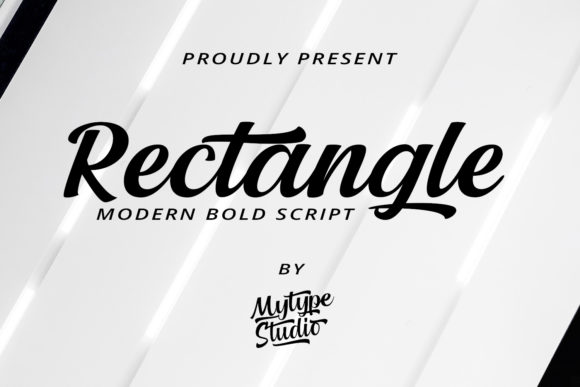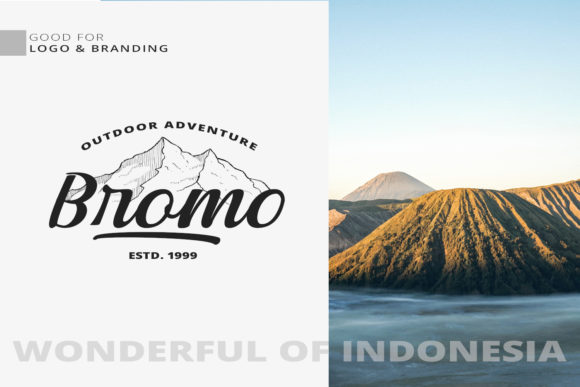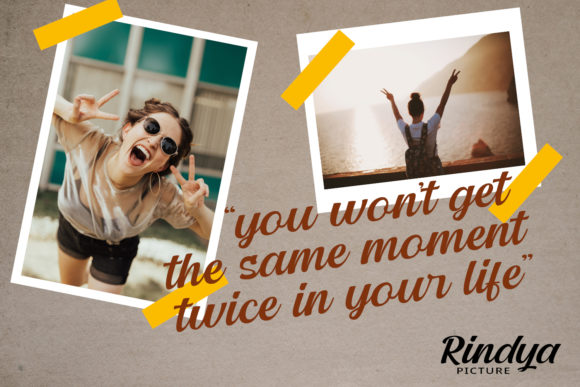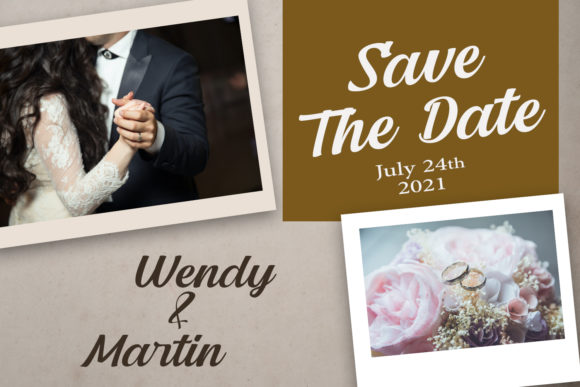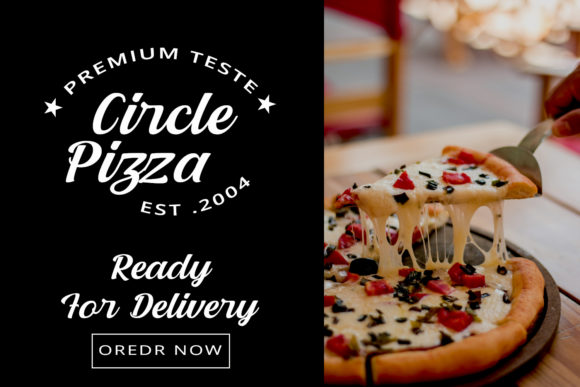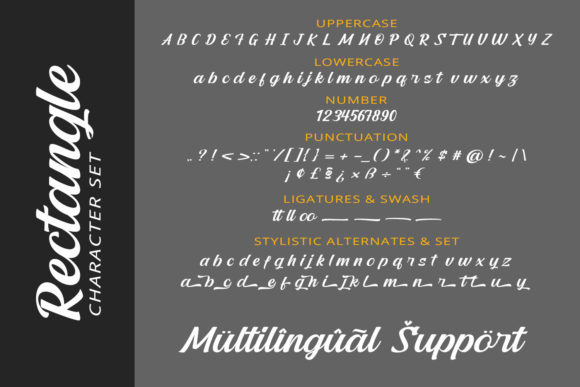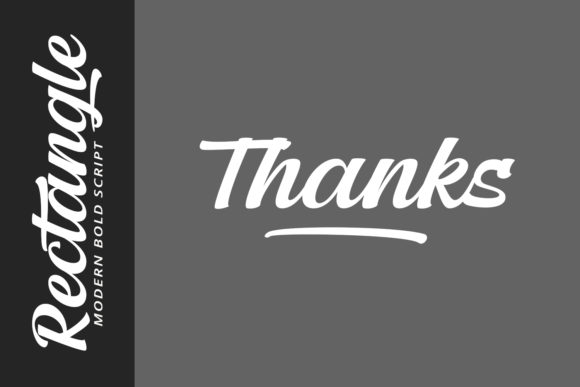
About Rectangle Font
Rectangle is a modern and bold handwritten font, crafted to give your headlines and logotype projects a stylish touch. This font reads as strong, confident, and dynamic and can add tons of nostalgic character to your designs.